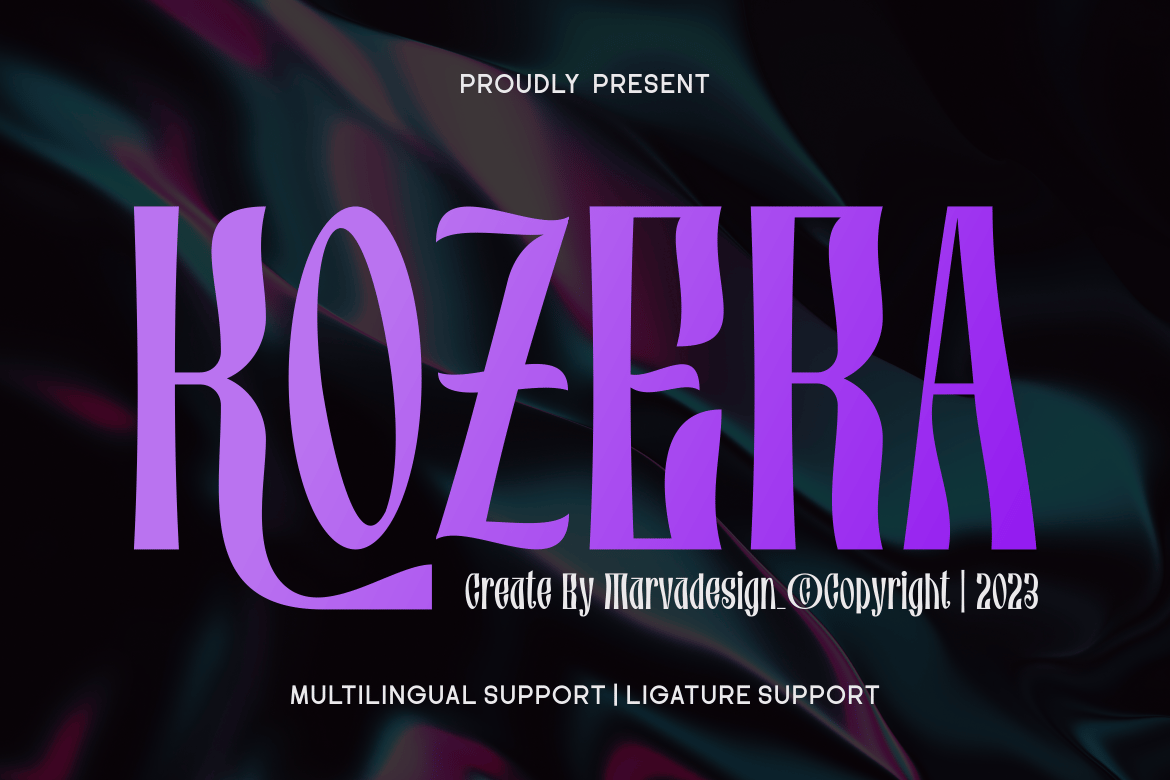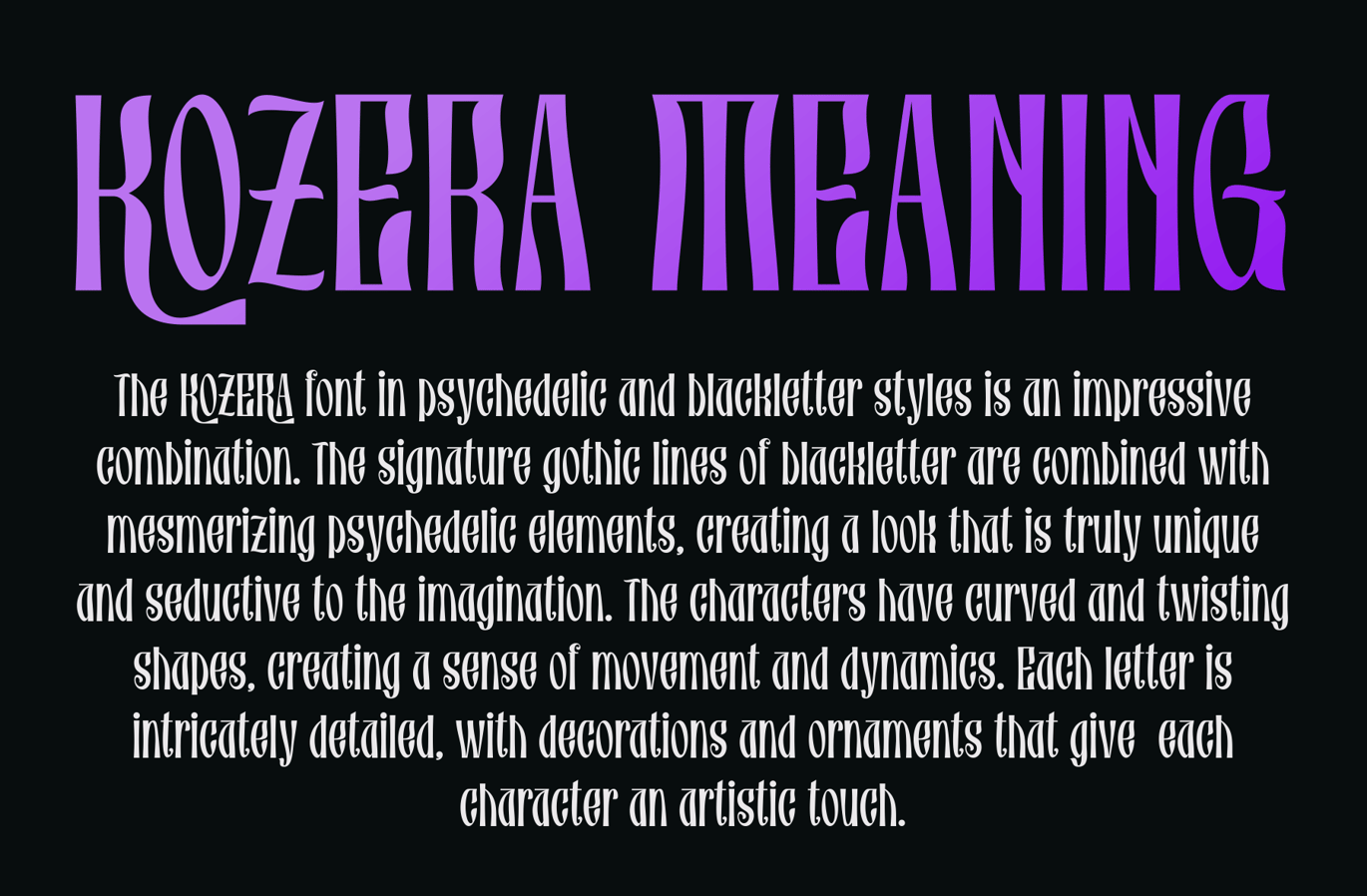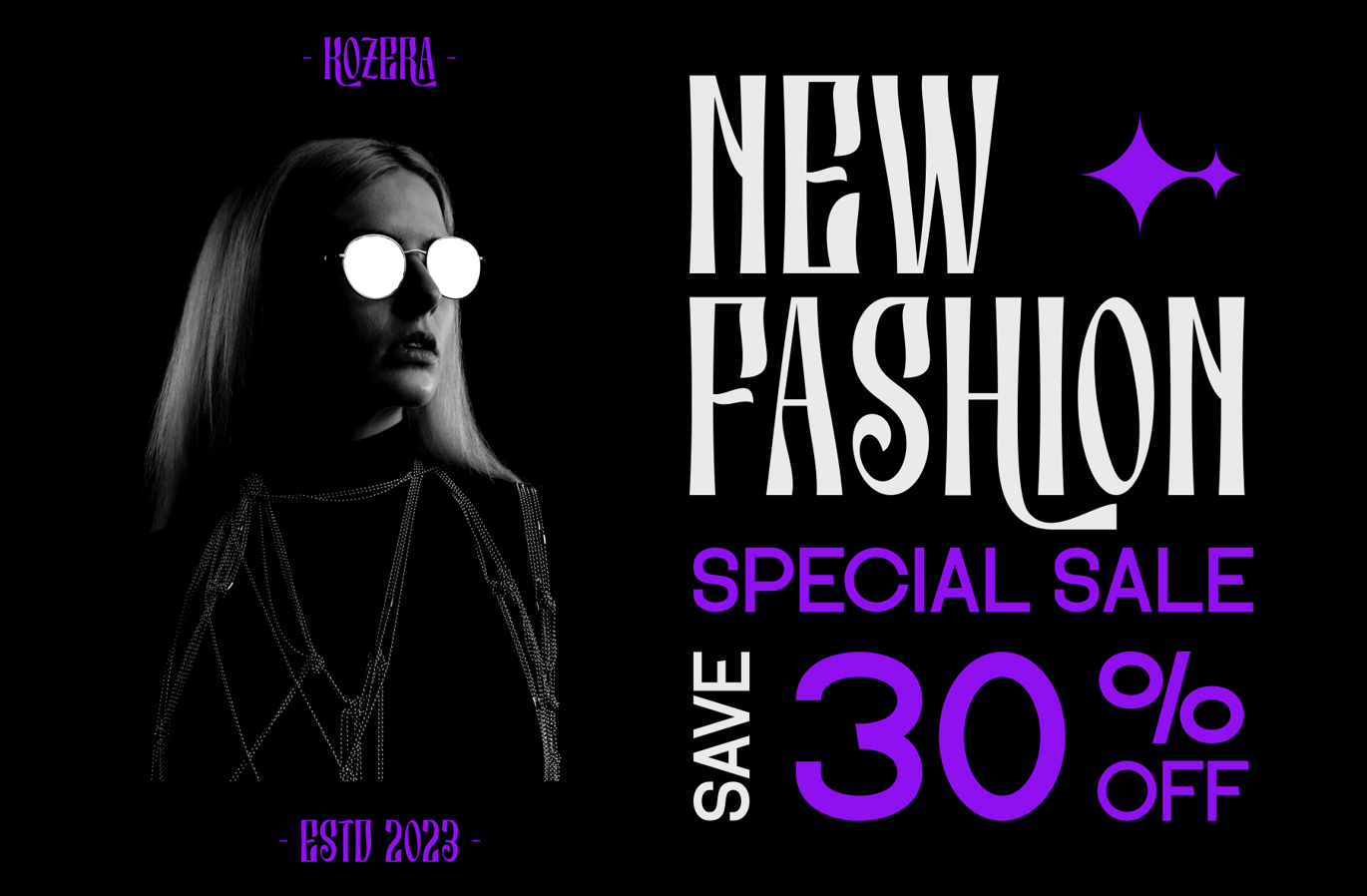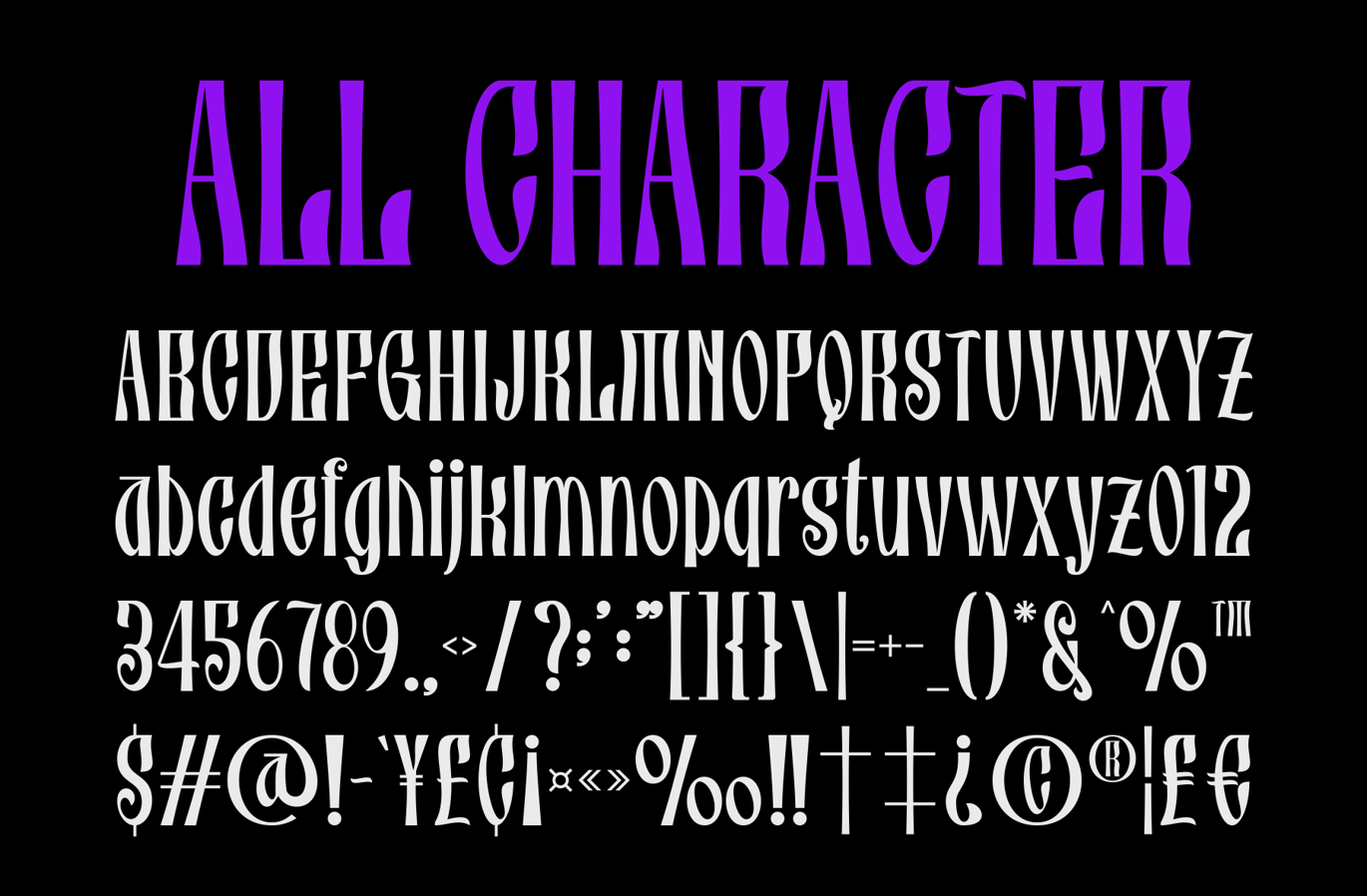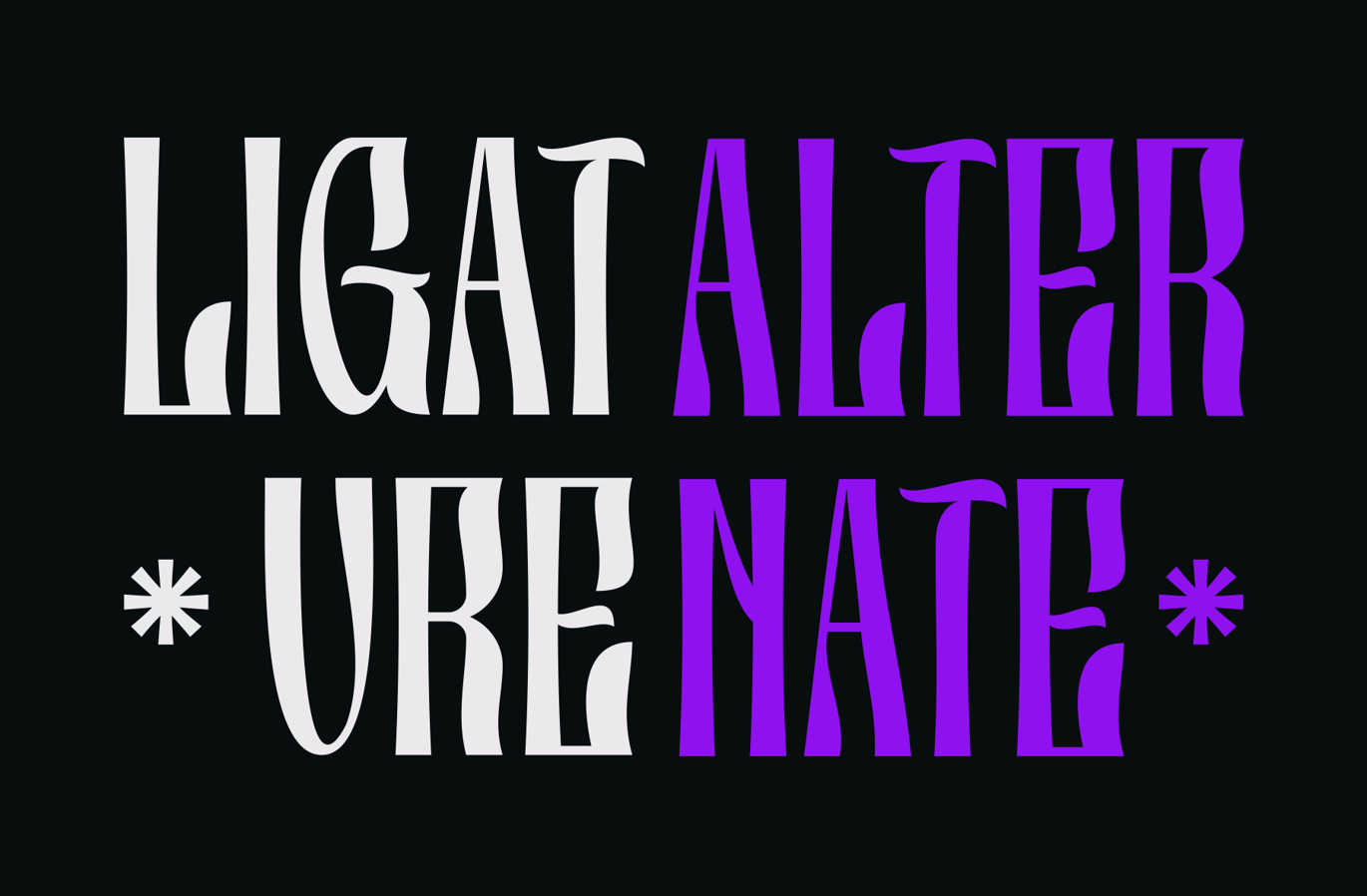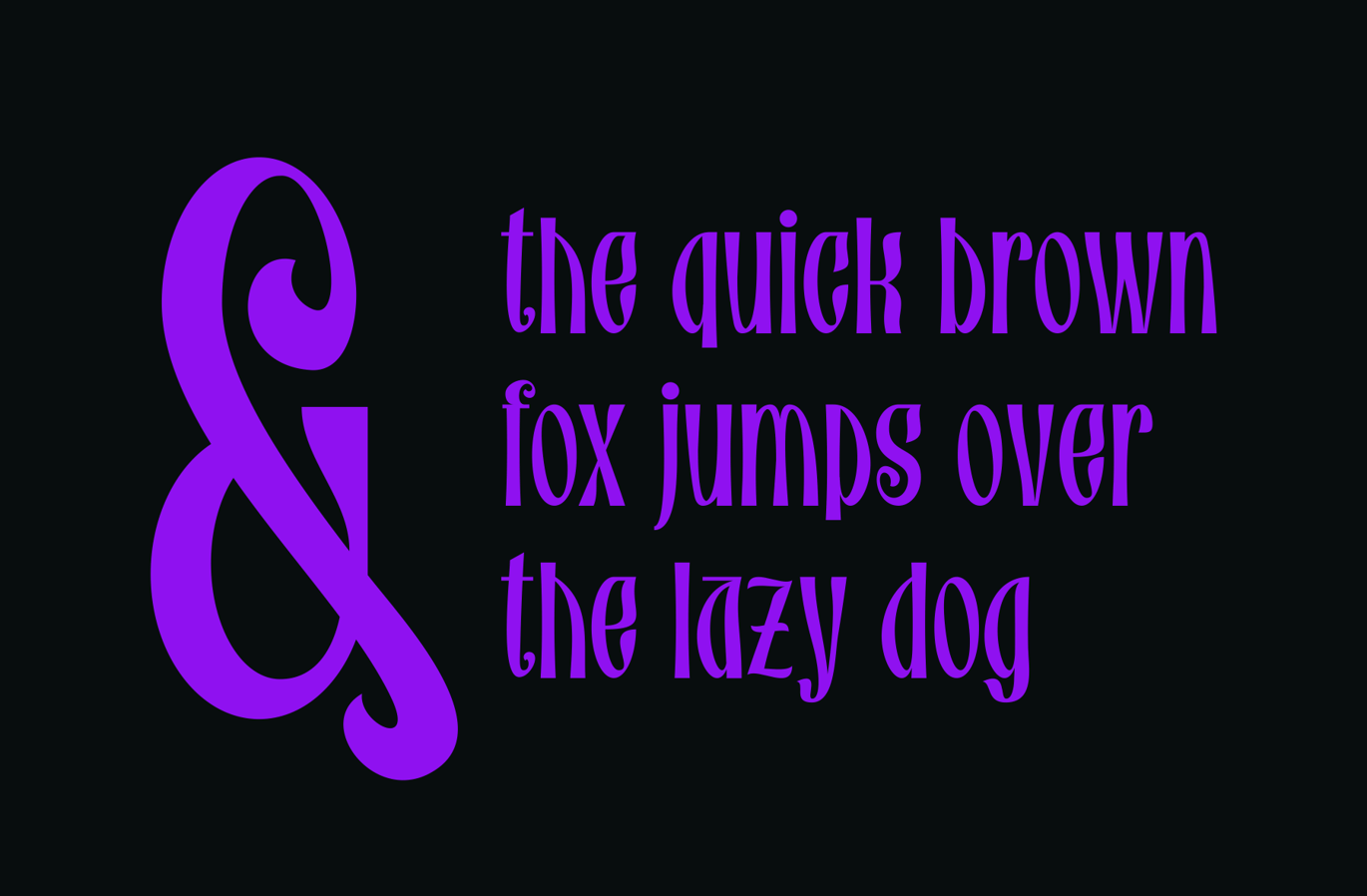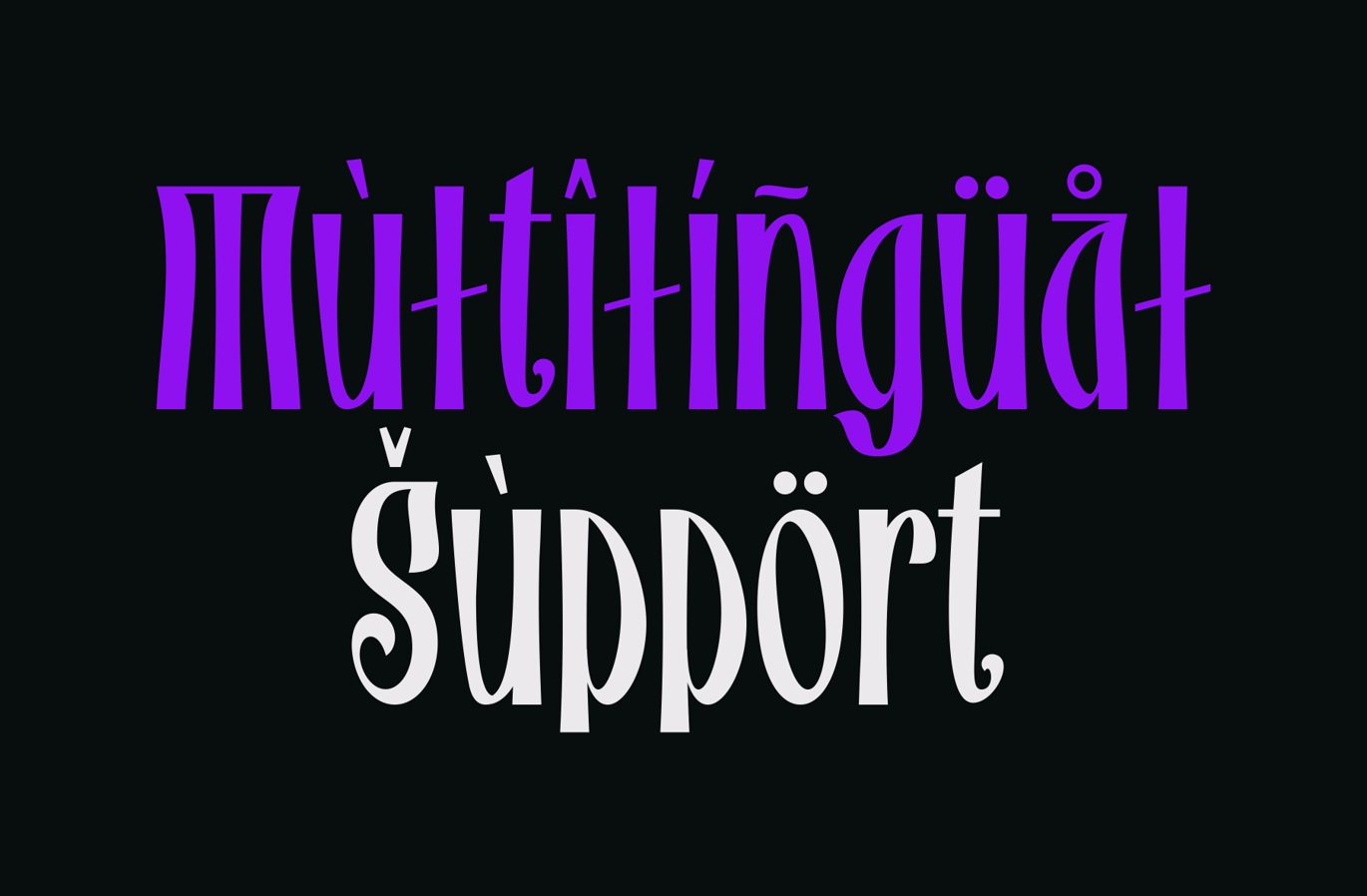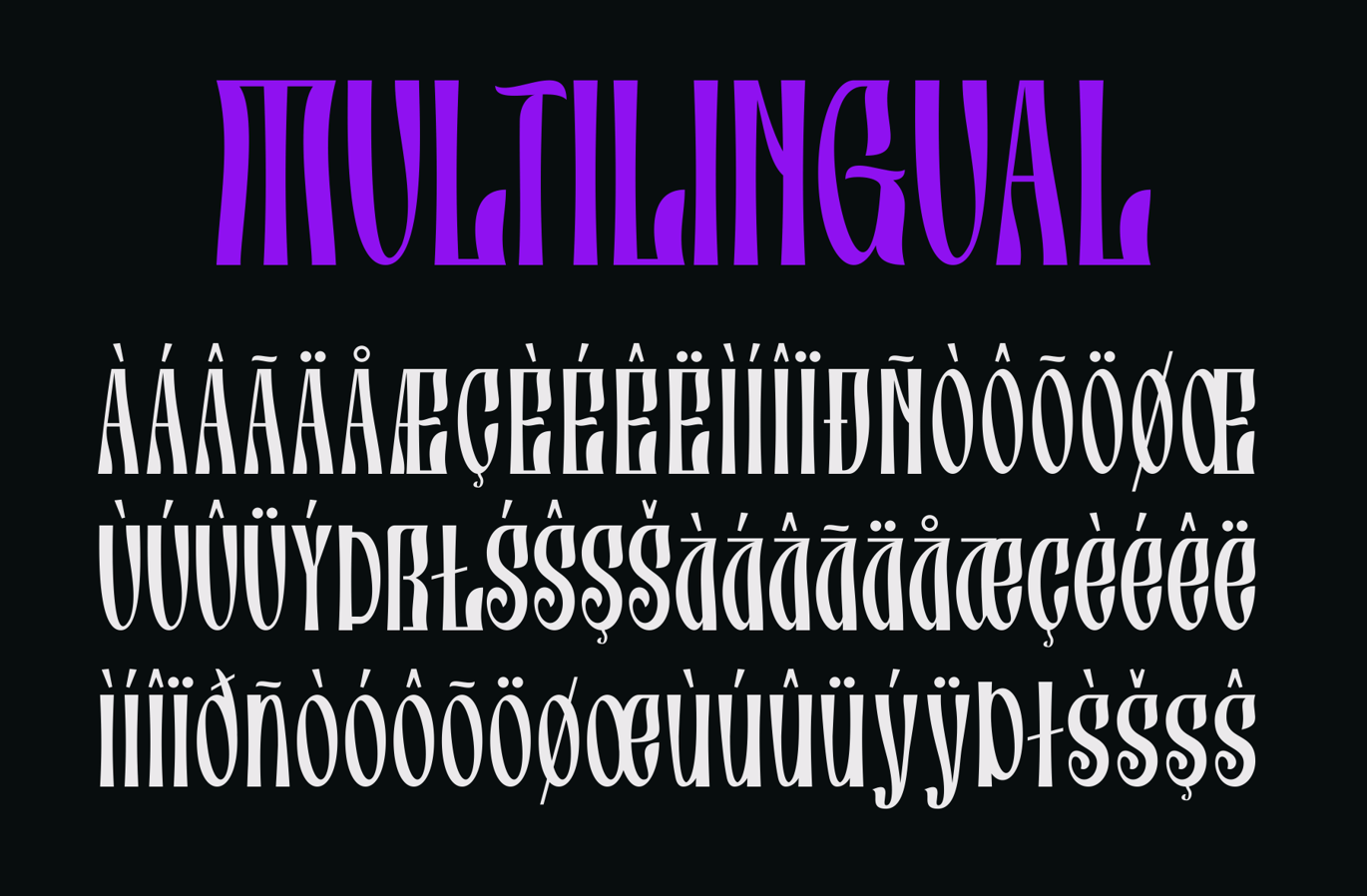
Kozera – Display Psychedelic Font
Introducing our new product Kozera Font – Display Psychedelic Font
Kozera Font – Display Psychedelic Font authentic display font. The font is suitable for any branding project like logo, Template Design, Product and many more. outstanding in a wide range of contexts.